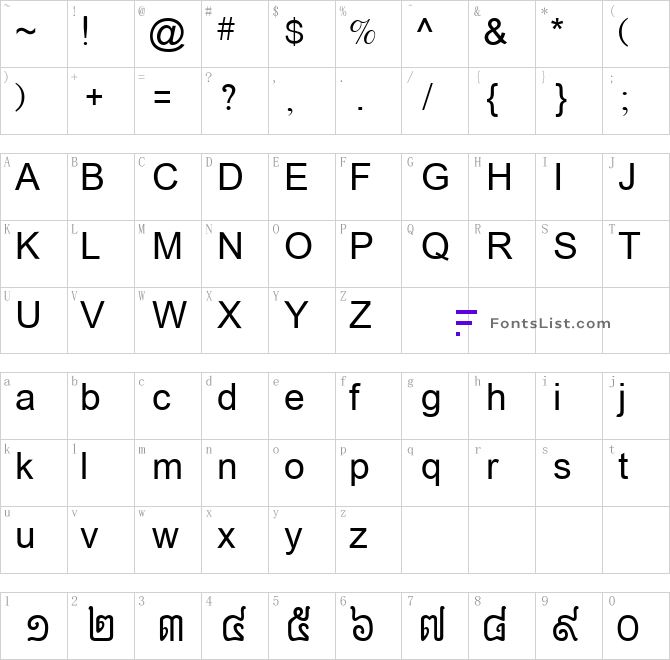
- Font Name:Anlongvill Khek
Anlongvill-Khek.ttf is a very beautiful artistic font, Anlongvill-Khek.ttf is widely used in the design and printing of various books and pictures,Anlongvill-Khek.ttf has a strong visual impact,Anlongvill-Khek.ttf is a commonly used font in newspapers, magazines and books, and is used in posters, e-commerce Poster design, store design, logo design, font design and other fields.Anlongvill-Khek.